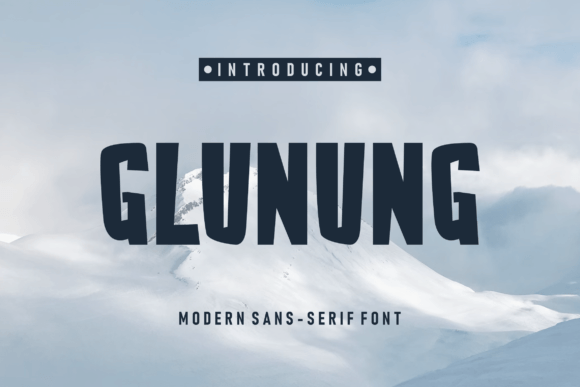
Introducing Glunung Font, the font that will transform your branding efforts, giving them a touch of sophistication and elegance. As you scroll through our collection of fonts, you may have noticed something missing – a captivating summary that highlights the exceptional qualities of Glunung Font. Allow us to fill that void and present to you a font that will leave an unforgettable mark on your designs.
Glunung Font is not just another sans serif font; it is a masterpiece crafted with meticulous attention to detail. Its clean lines, balanced proportions, and subtle curves exude a timeless charm that will resonate with your audience. Unlike conventional fonts that blend into the background, Glunung Font demands attention, making it the perfect choice for logos, headlines, and any element that demands impact.
But Glunung Font is more than just visually stunning; it is also remarkably versatile. Its understated elegance makes it suitable for a diverse range of projects, from personal branding to corporate identities. Imagine the impact it will have on your business cards, letterheads, and marketing materials. Glunung Font will elevate your brand, giving it a polished and professional image that will set you apart from the competition.
If you are a designer seeking to create a lasting impression, Glunung Font is an essential addition to your toolkit. Its versatility extends beyond branding, making it ideal for typography, website design, social media graphics, and any project that requires a touch of sophistication. With Glunung Font, you can effortlessly elevate your designs, capturing the attention of your audience and leaving a lasting impact.